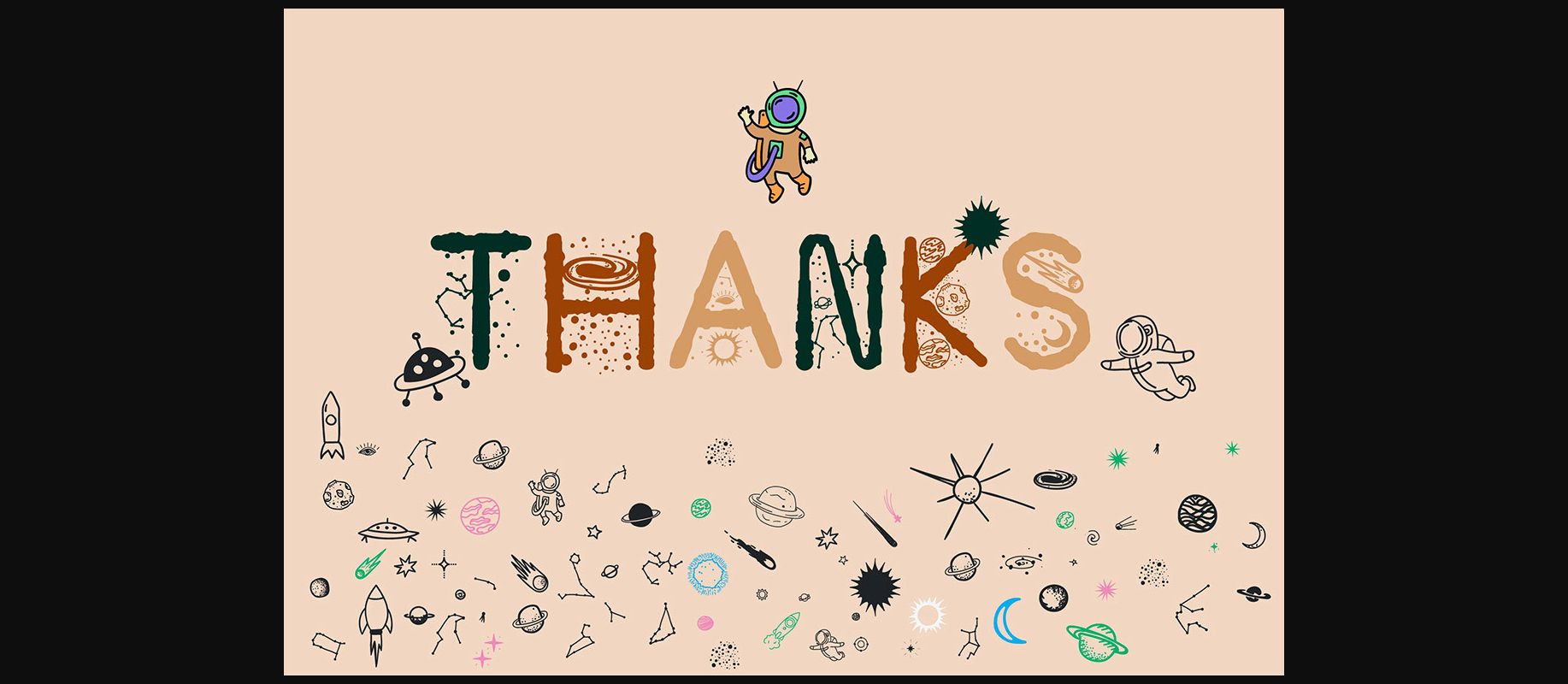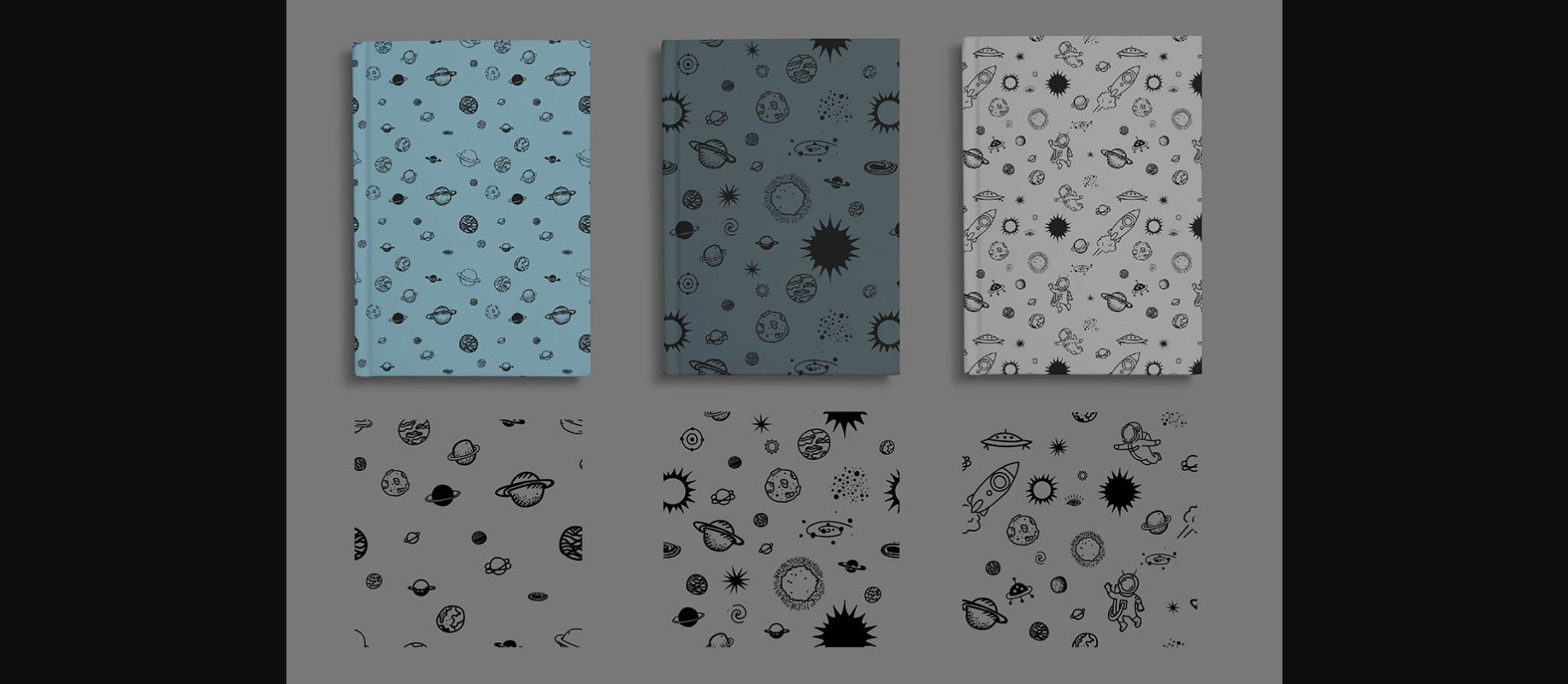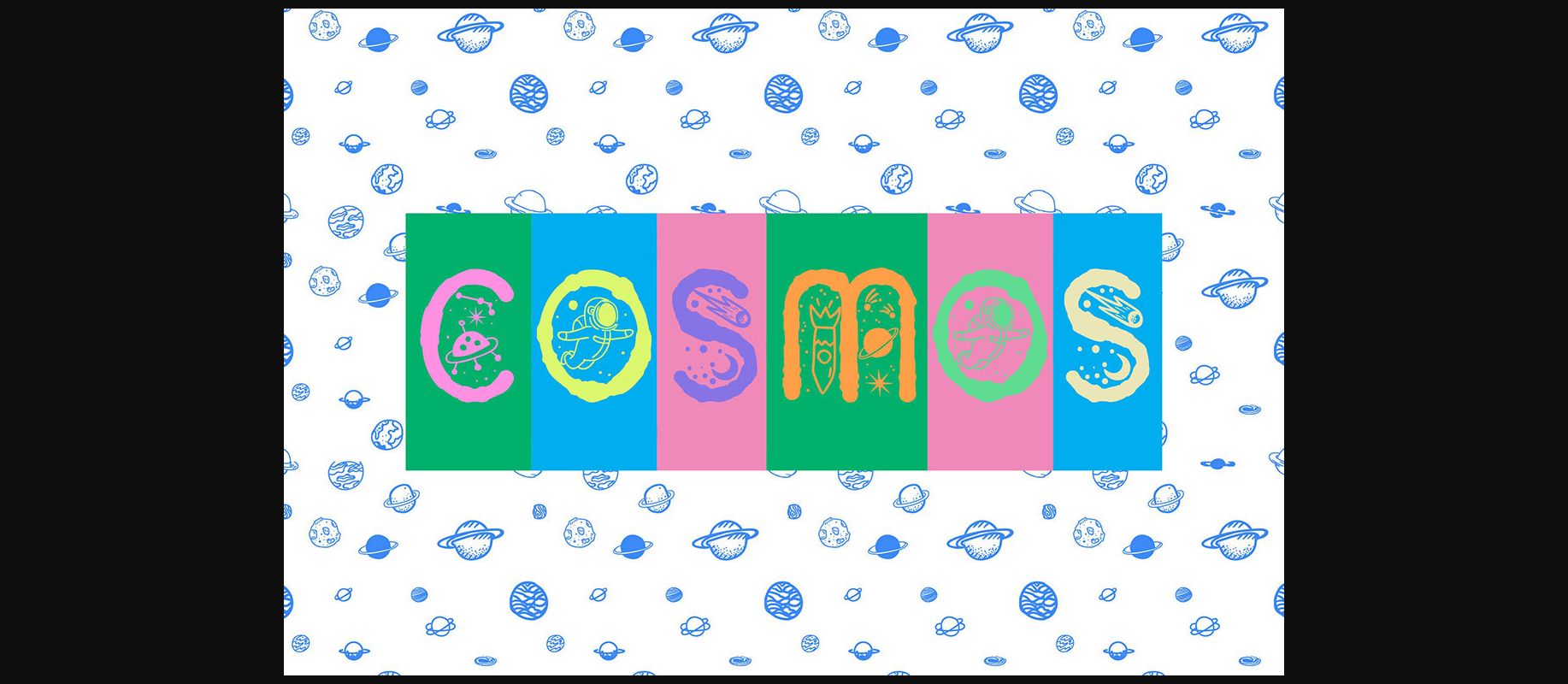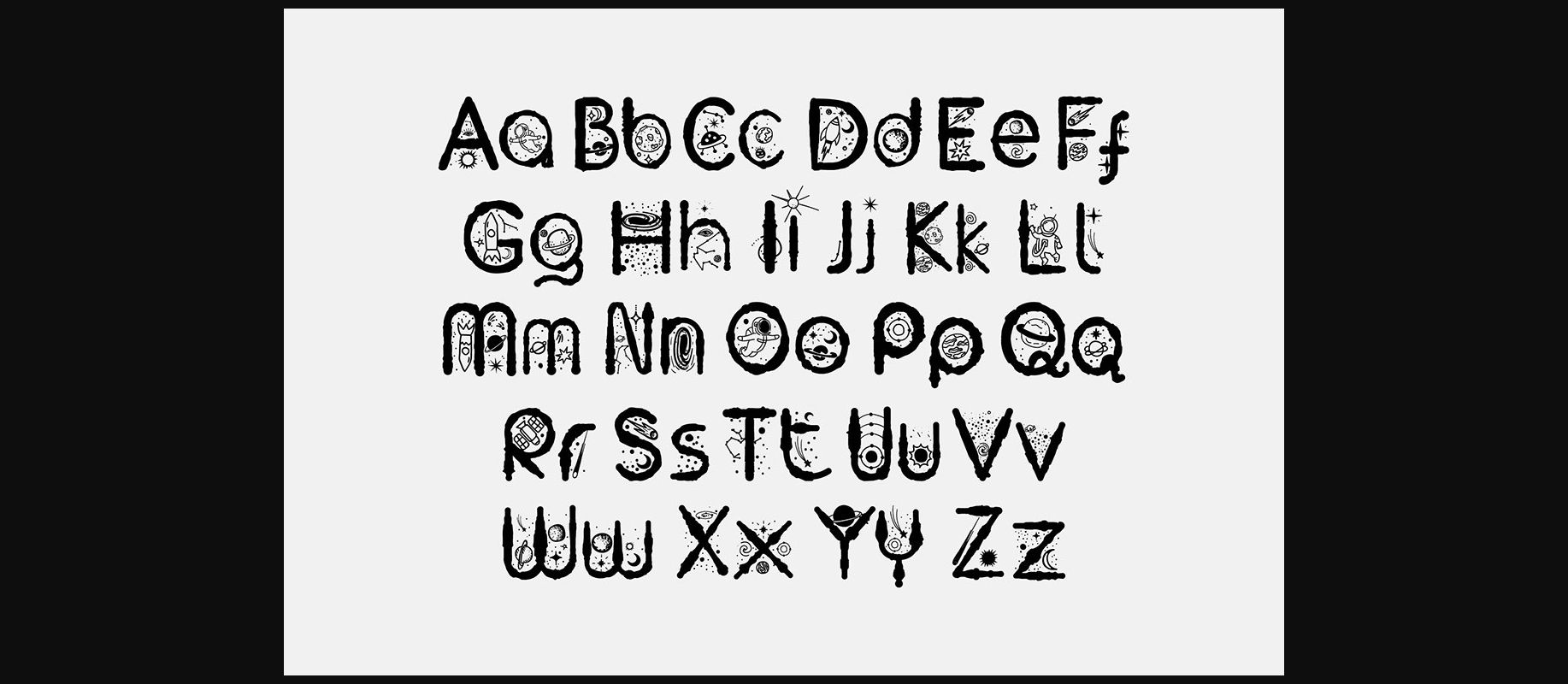
About Cosmos Font
Cosmos is a new hand-drawn decorative font featuring letters decorated with small space-themed items. Ideal for space-themed books, diaries, posters, and websites. It also works great for children’s clothing or pastel linen.